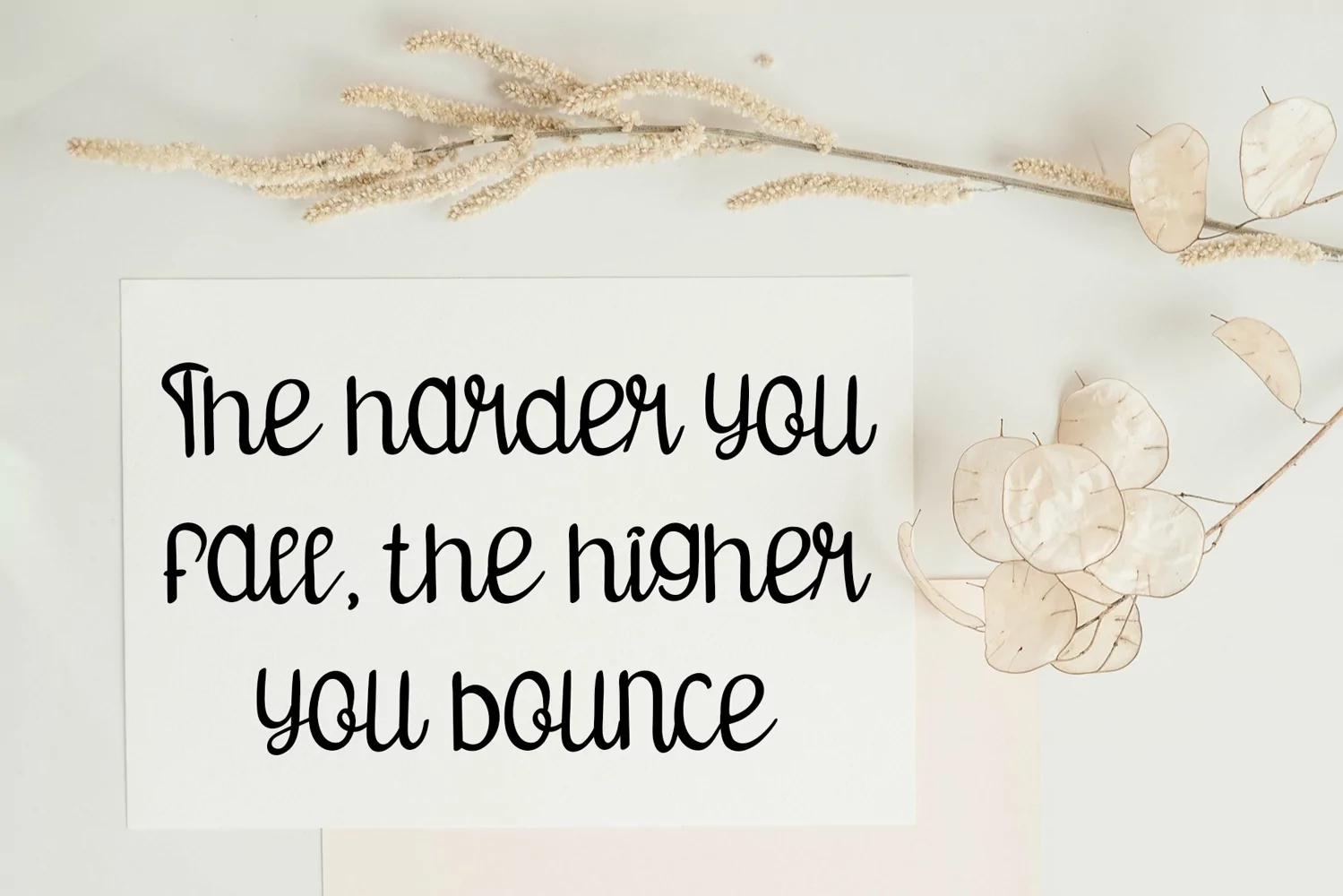
Cutest Pumpkin
Introducing, this is our newest product, we call this product Cutest Pumpkin,
It looks amazing with sweet touches and beautiful curves in each letter. Cutest Pumpkin fonts are perfect for: wedding invitations, fashion magazines, logos, signatures, photography, watermarks, wall displays, social media,